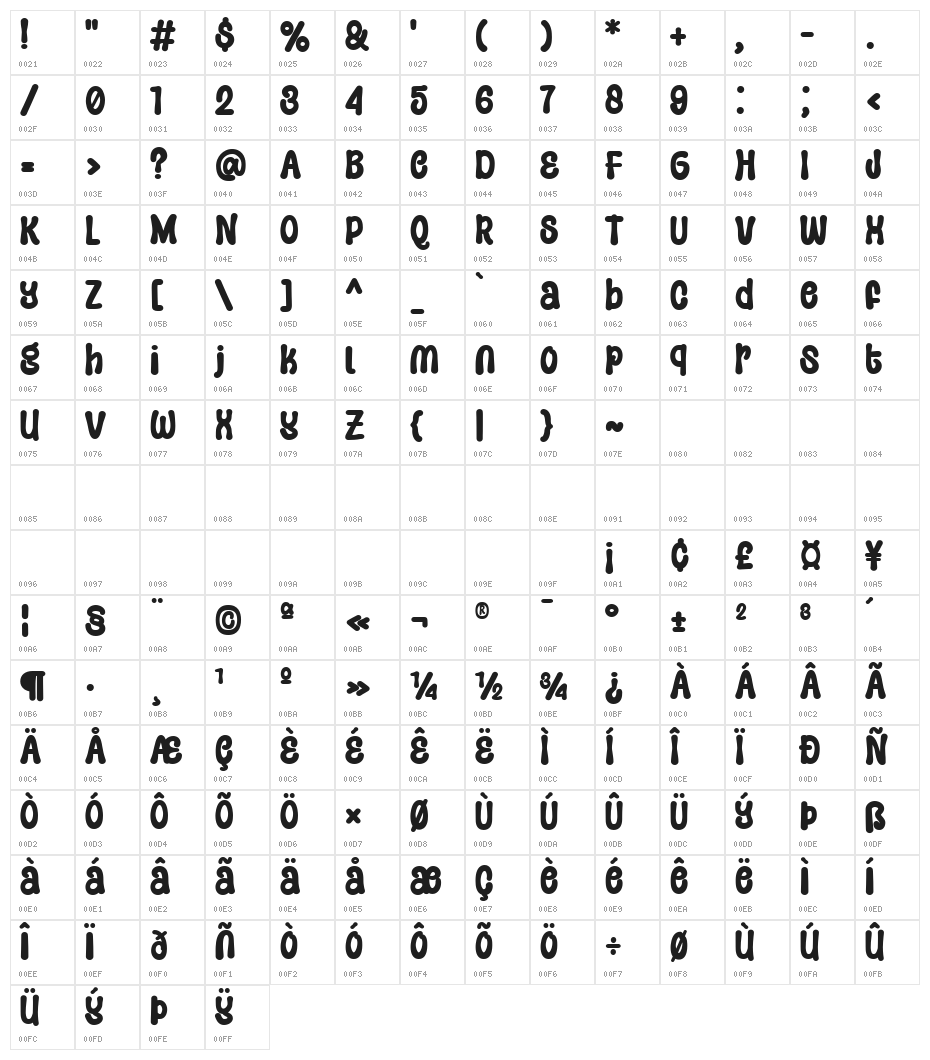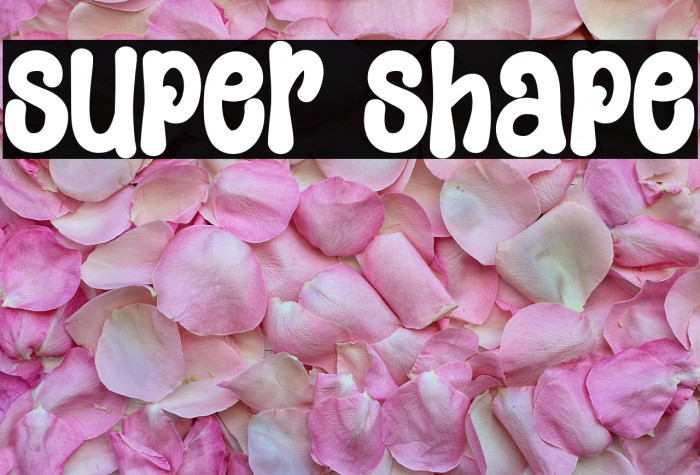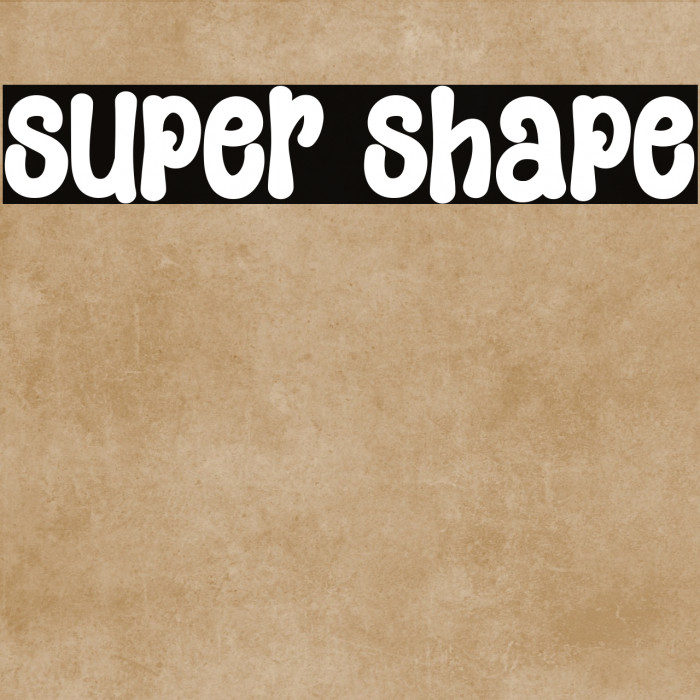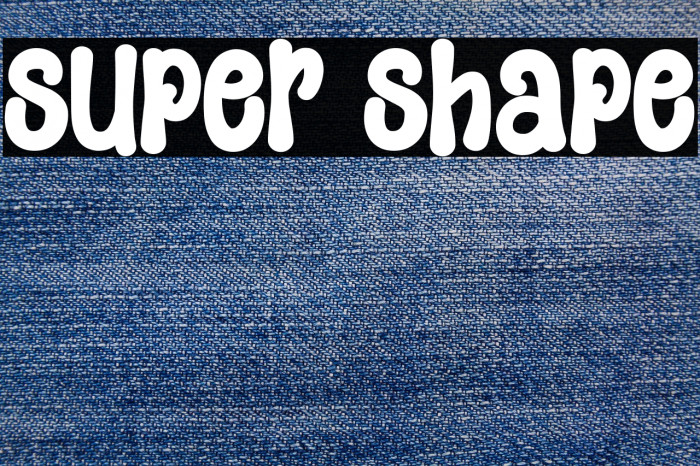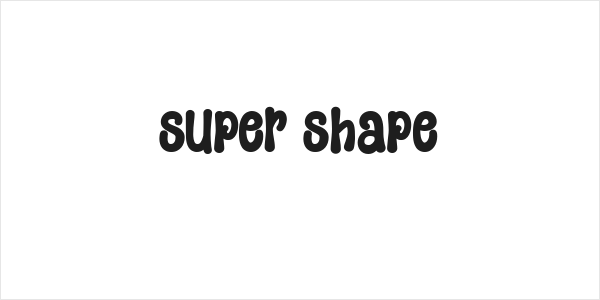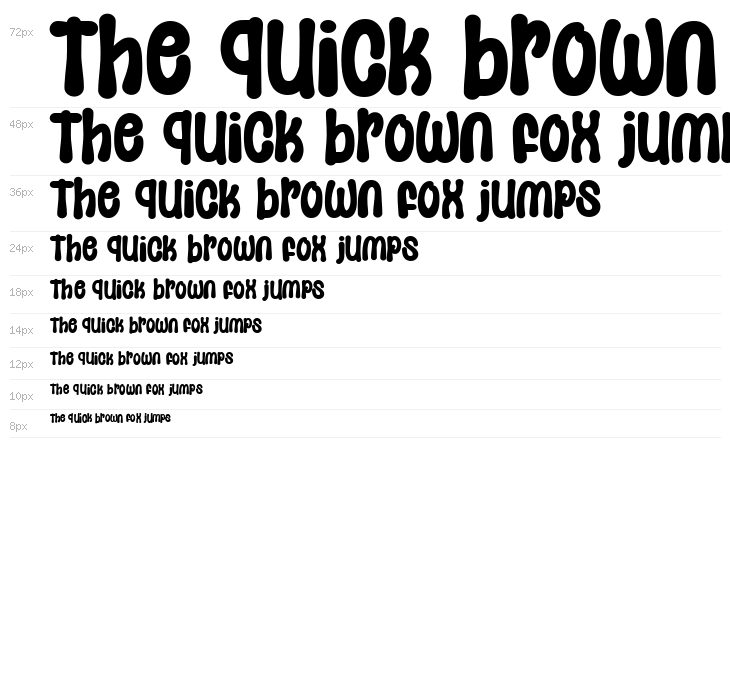
Super Shape Font
Super Shape Description
This font features a bold, playful design with rounded, thick strokes that give it a bubbly and friendly appearance. The characters are uniformly wide, creating a sense of balance and consistency across the alphabet. The uppercase and lowercase letters maintain a cohesive style, with a slight whimsical flair that adds to its charm. The numbers and special characters follow the same design principles, ensuring a harmonious look throughout. This font is ideal for projects that require a fun and approachable aesthetic, making it suitable for children's books, playful branding, or eye-catching headlines.
| Overall Style | Playful, Fun |
| Proposed Projects | Ideal for children's books, playful branding, eye-catching headlines, and creative posters. |